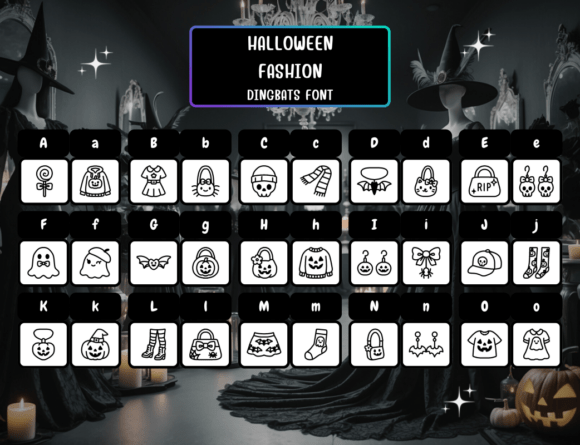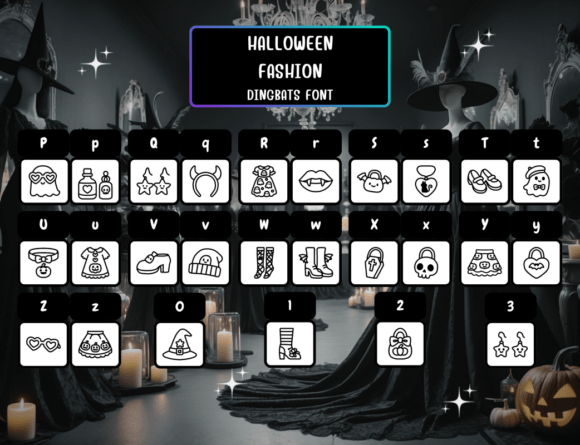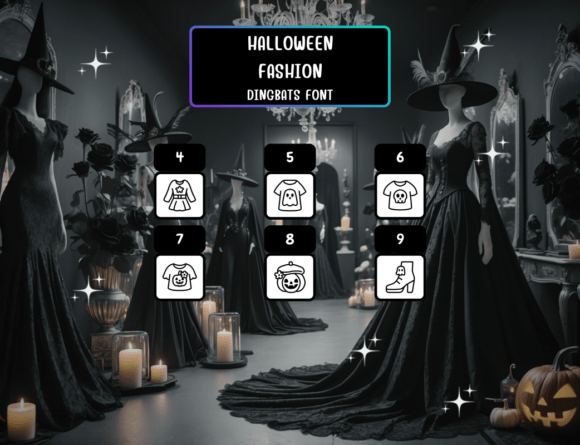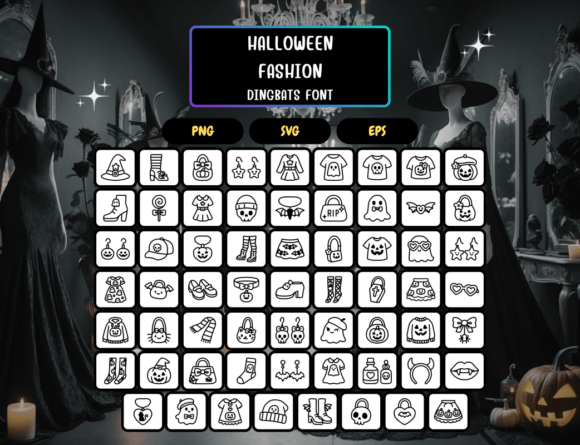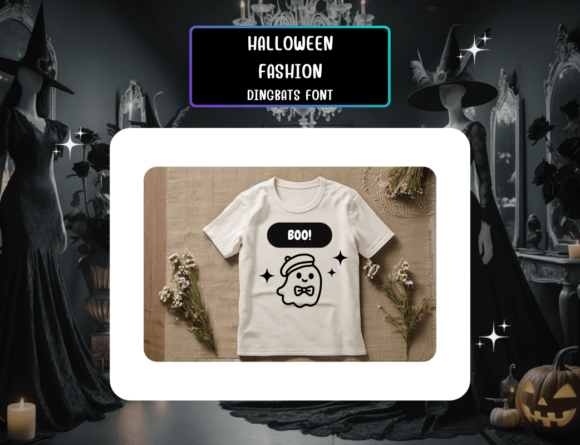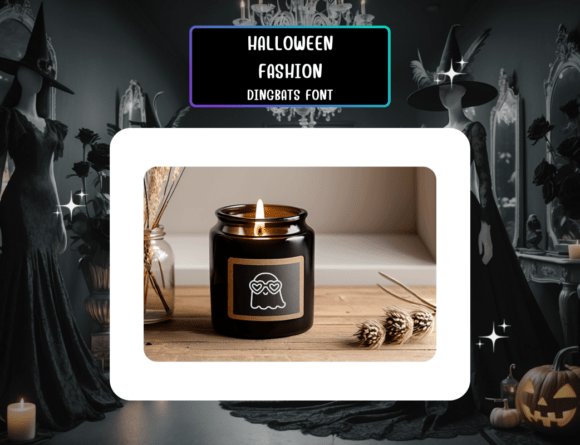
Introduction to Halloween Fashion Font
As I sat at my desk, surrounded by twinkling string lights and an eerie fog machine, I couldn’t help but feel a surge of creative energy on a crisp autumn evening. The smell of pumpkin spice wafted through the air, and my mind began to wander to the perfect design project to kick off the spooky season. It was then that I stumbled upon the enchanting Halloween Fashion Font, a charming dingbats font that has since become my go-to design resource.
This delightful font is more than just a fun addition to your design arsenal – it’s a high-quality tool that will elevate your creative projects to the next level. With its intricate, hand-drawn illustrations, you can add a touch of whimsy and magic to your designs, from labels and packaging to greeting cards and educational materials.
Halloween Fashion Font
- Unique and creative design perfect for Halloween-themed projects and designs.
- Includes multiple font styles and variations for added versatility in your design.
Honest Review: Halloween Fashion Font
I recently stumbled upon the Halloween Fashion Font, and I must say it’s a unique design resource for any creative project. As a designer, I’m always on the lookout for high-quality fonts that can add a touch of personality to my work.
The font itself is well-crafted, with a range of spooky and stylish characters that are sure to add a touch of Halloween magic to your designs. The transparent background makes it easy to layer over other design elements, and the high quality of the font ensures that it looks great on any device.
- Unique and creative characters that are perfect for Halloween-themed designs
- Transparent background makes it easy to layer over other design elements
- High quality font that looks great on any device
- The font may not be suitable for non-Halloween-themed designs
- The character set is limited to a specific range of characters
Halloween Fashion Font is a high-quality design resource that can be used in a variety of creative projects. It’s a free download that can be used for personal or commercial use. The font includes a variety of characters, including uppercase and lowercase letters, numbers, and special characters.
Halloween Fashion Font can be used in a variety of common use cases, including:
- Spooky invitations and party decorations
- Horror movie posters and trailers
- Halloween-themed social media graphics and ads
- Spooky-themed websites and blogs
Getting the Most Out of It
To get the most out of Halloween Fashion Font, use it in conjunction with other design resources, such as images and graphics. Experiment with different font sizes, colors, and alignments to create unique and eye-catching designs. Use the font with a transparent background to add a spooky and